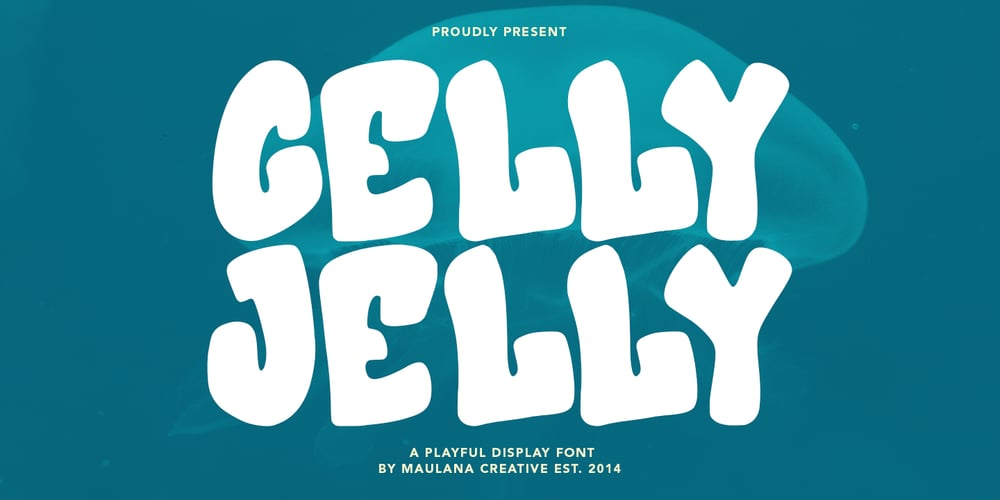
MC Celly Jelly Font Family was designed by Gilang Maulana and published by Maulana Creative. MC Celly Jelly contains 1 styles and family package options. Celly Jelly playfull display font. Bold stroke, fun character with a bit of ligatures and alternates. To give you an extra creative work. Celly Jelly playfull display font support multilingual more than 100+ language. This font is good for logo design, Social media, Movie Titles, Books Titles, a short text even a long text letter and good for your secondary text font with script or serif. Make a stunning work with Celly Jelly playfull display font.Cheers,Maulana Creative